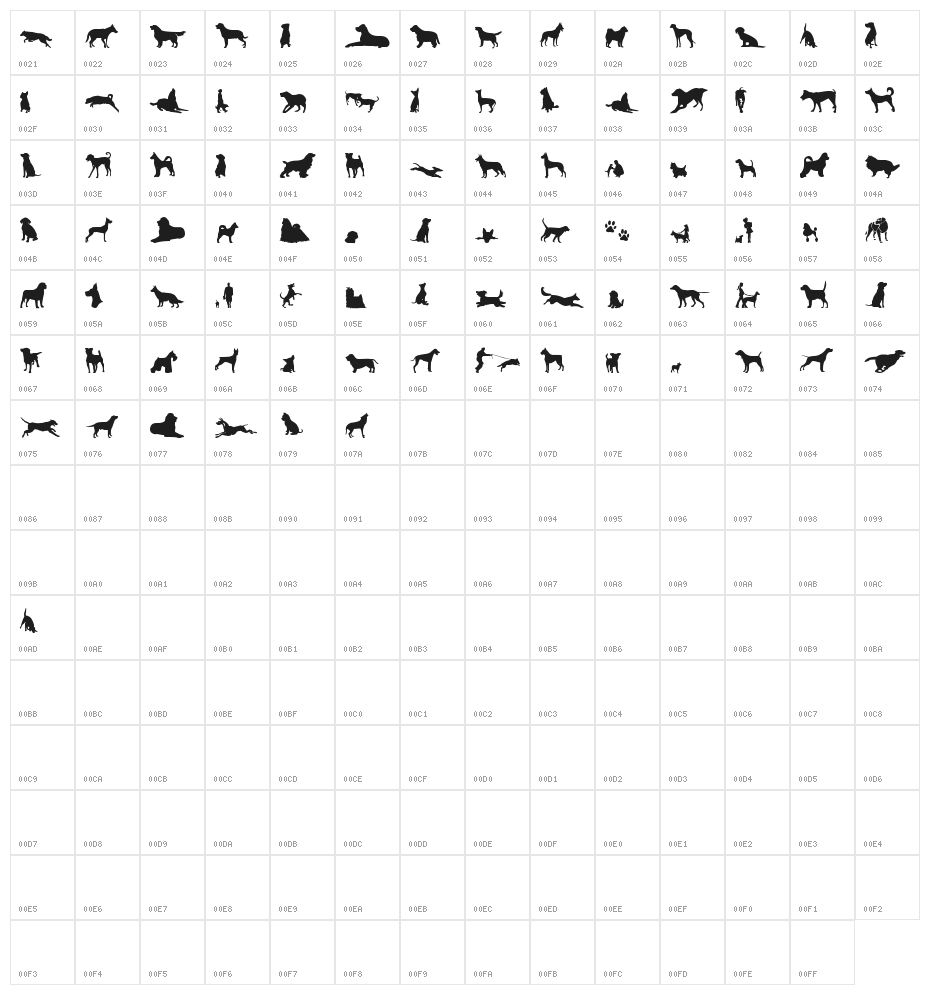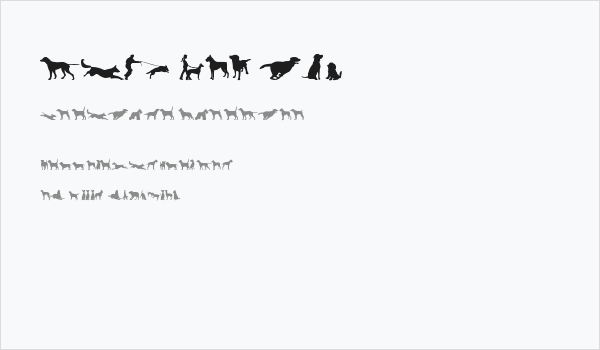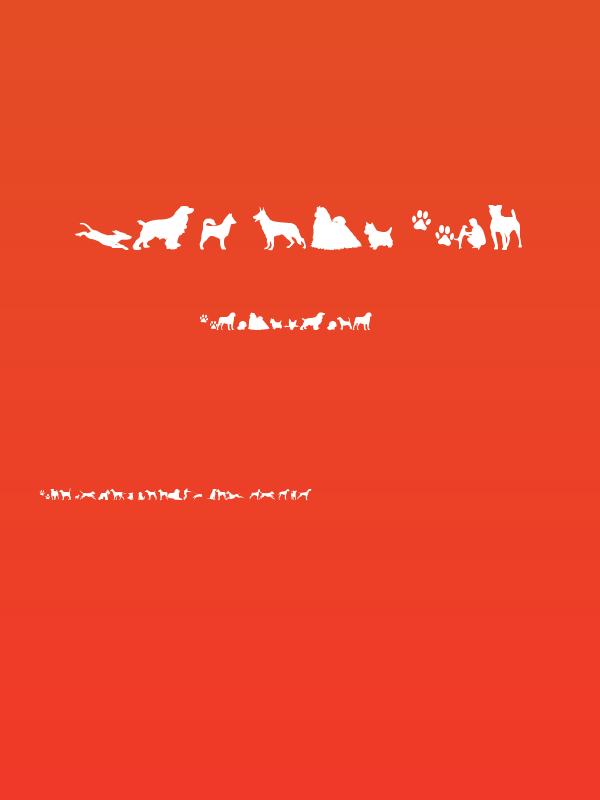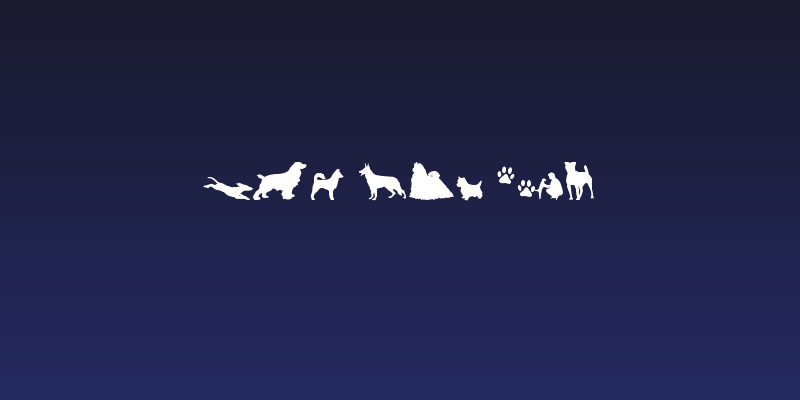
can dog tfb Font
can dog tfb Description
A decorative display font composed of various dog silhouettes in different poses and activities, including some with humans and paw prints. Each character is represented by a unique dog-related illustration, making it highly pictorial and thematic.
| Overall Style | Decorative, Playful, Thematic |
| Use Case | Logos, Posters, Themed Graphics, Invitations |
| Proposed Projects | Pet shop branding, dog event posters, animal shelter materials, children's books, playful invitations, themed signage. |